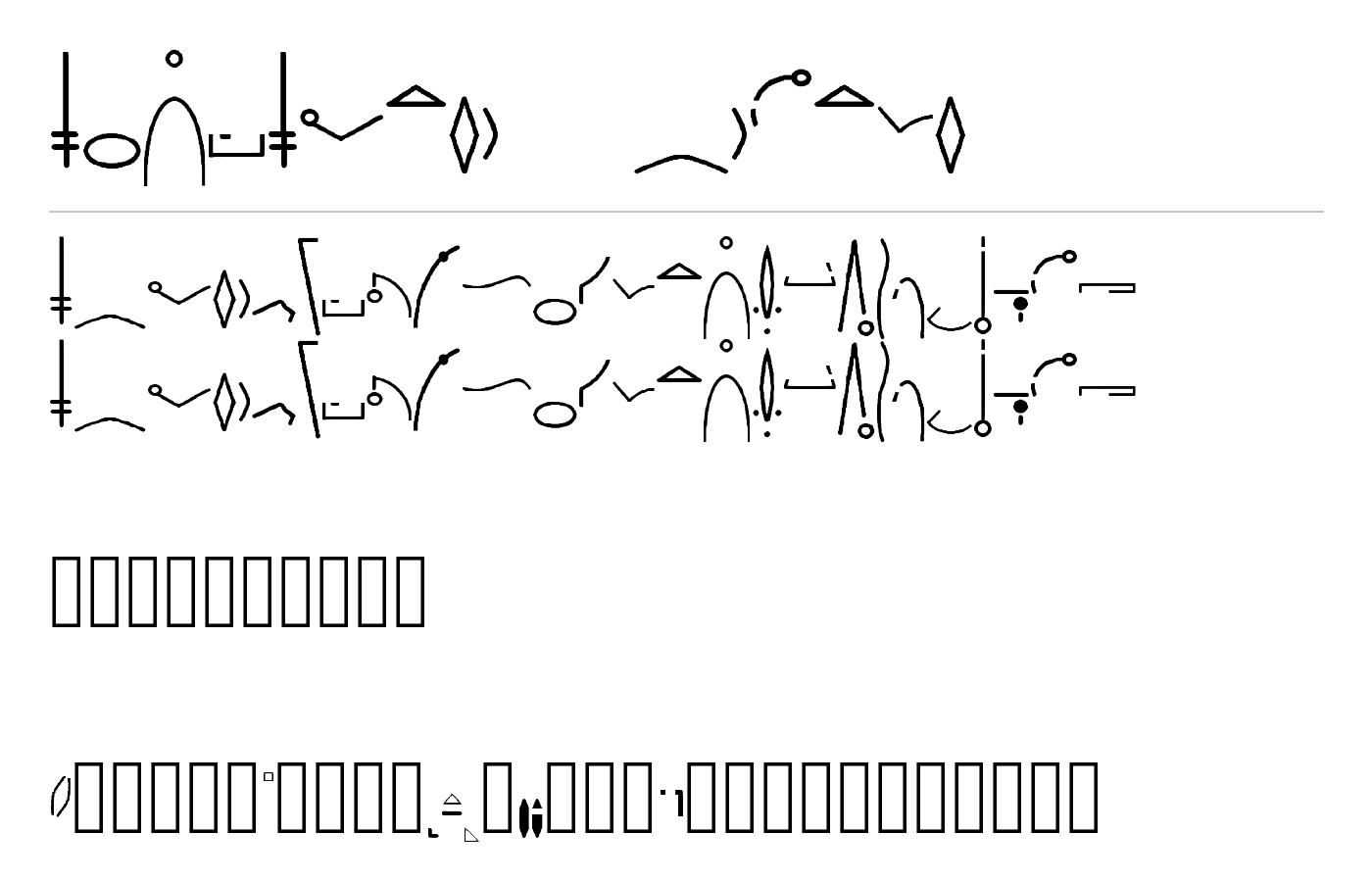
Alphacode Beyond is a highly stylized and abstract font that resembles a futuristic or alien script, featuring intricate, delicate lines and geometric shapes rather than conventional letterforms. This unique typeface works best in creative projects where a mysterious, sci-fi, or otherworldly aesthetic is desired, such as video games, posters, or branding that aims to convey innovation and intrigue. Its distinctive design makes it ideal for decorative use rather than standard text, perfect for grabbing attention and sparking curiosity.
Alphacode Beyond Font
About Alphacode Beyond Font